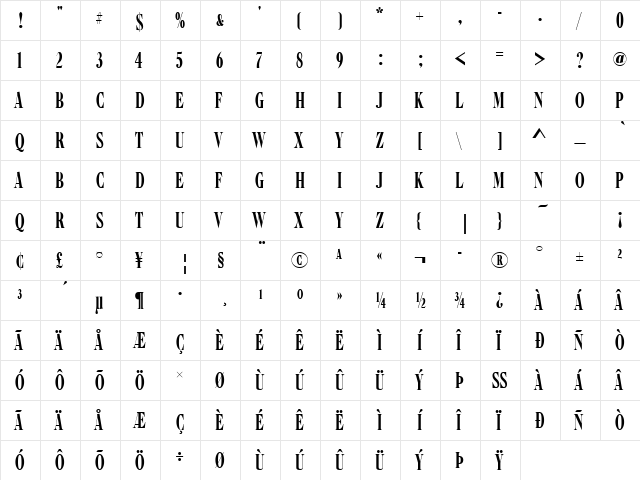
CaslonGraComD Regular
Design Context for CaslonGraComD Typeface
CaslonGraComD takes a measured approach to typography — its balanced proportions and neutral character make it a reliable workhorse for both digital and print work.